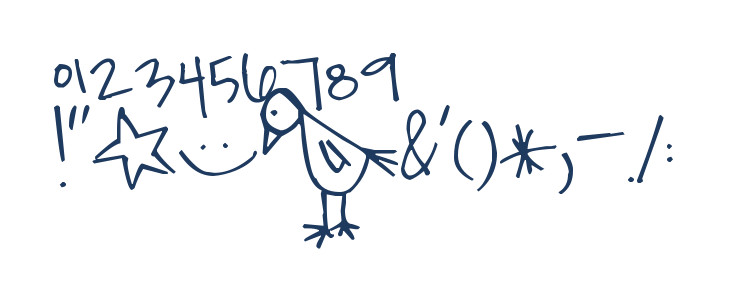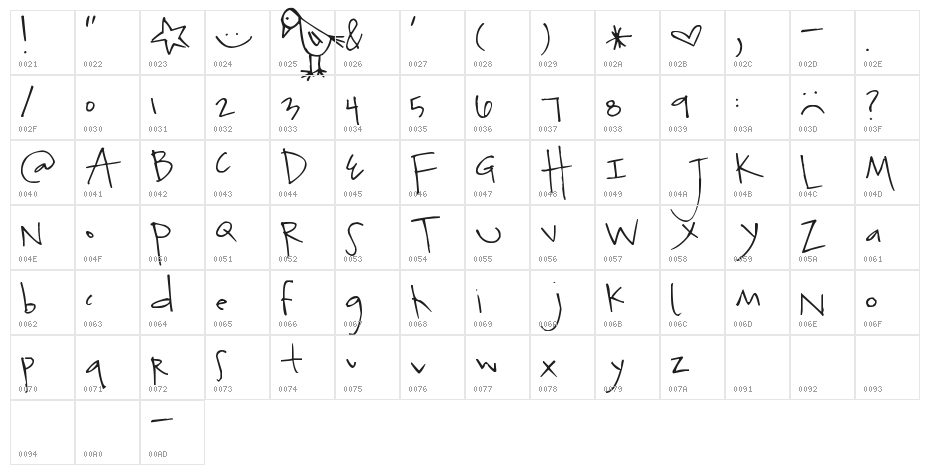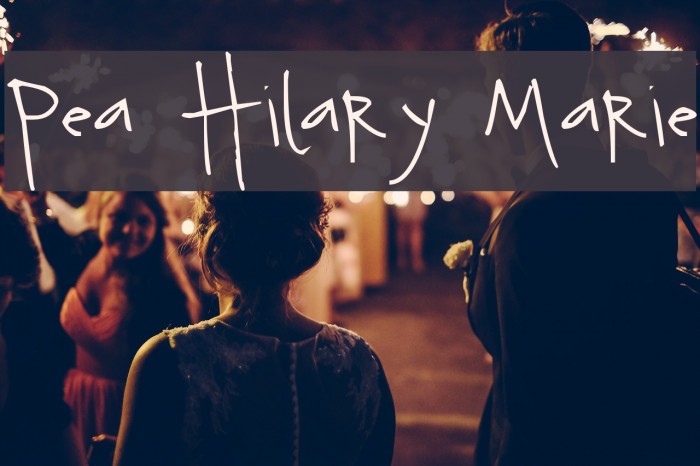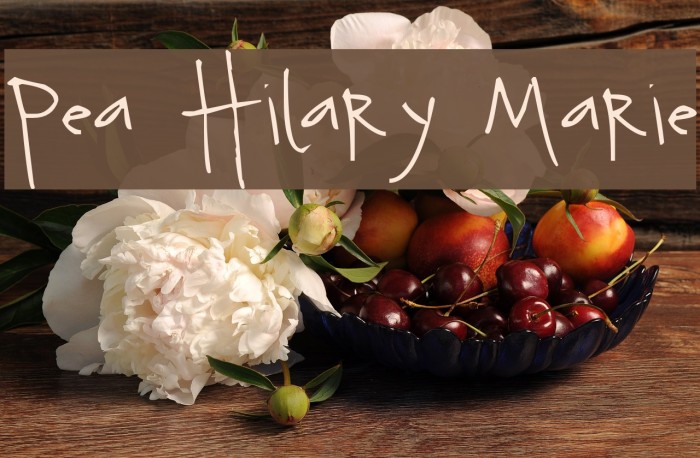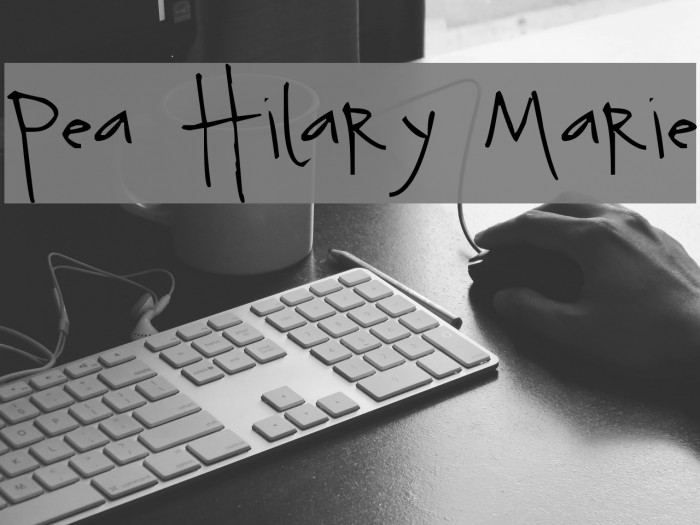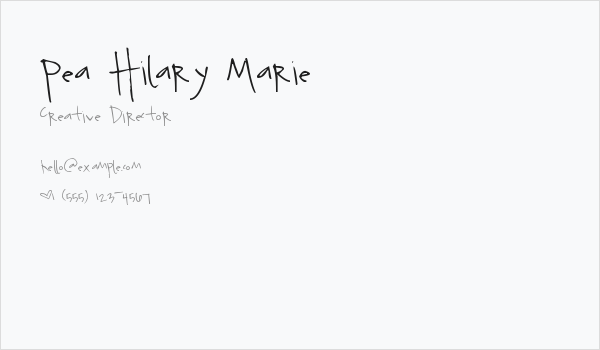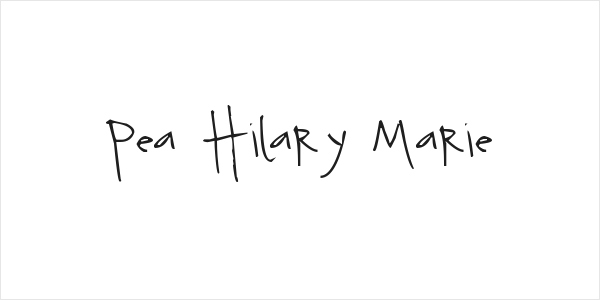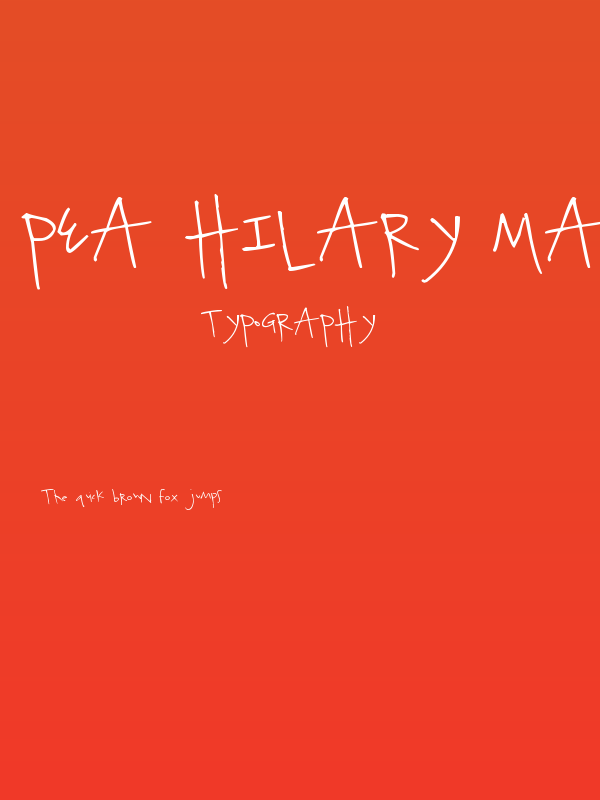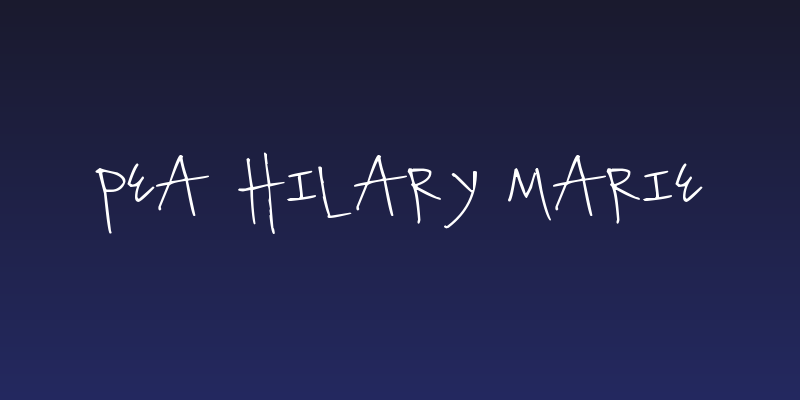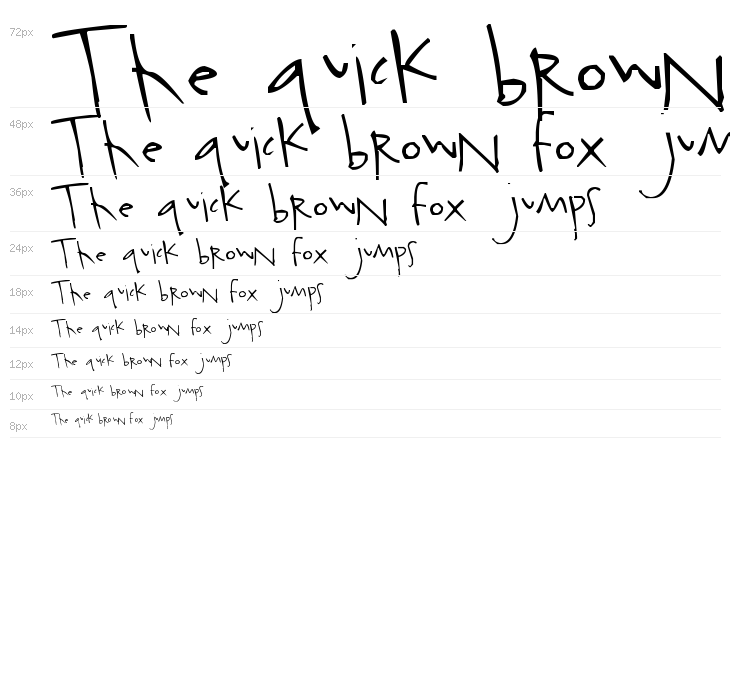
Pea Hilary Marie Font
Pea Hilary Marie Description
This font exudes a playful and whimsical charm, characterized by its hand-drawn, casual appearance. The letters are uneven and slightly tilted, giving it an informal, friendly vibe. The strokes vary in thickness, adding to its organic feel. The uppercase and lowercase letters maintain a consistent style, with quirky details that make each character unique. The numbers and special characters follow the same playful design, making it suitable for creative and informal projects.